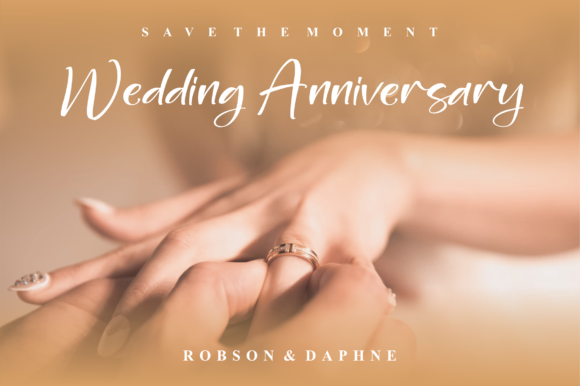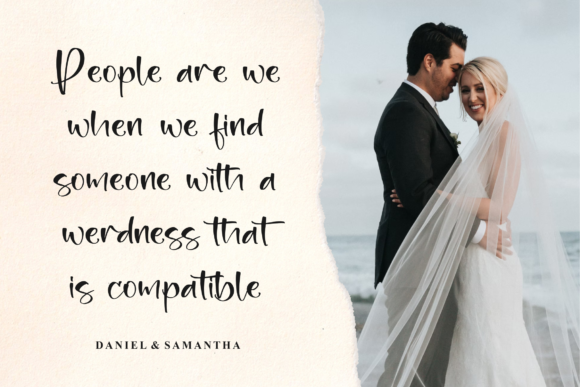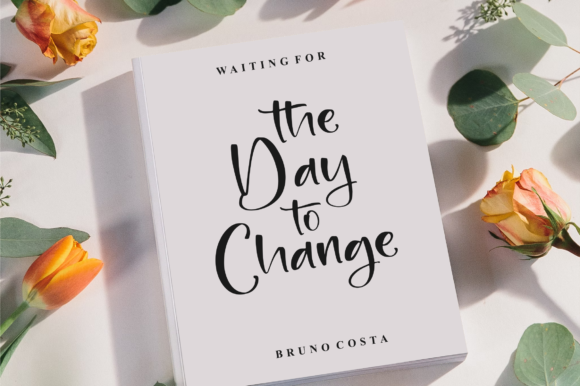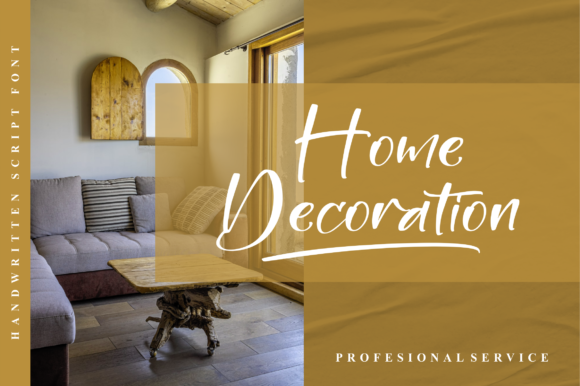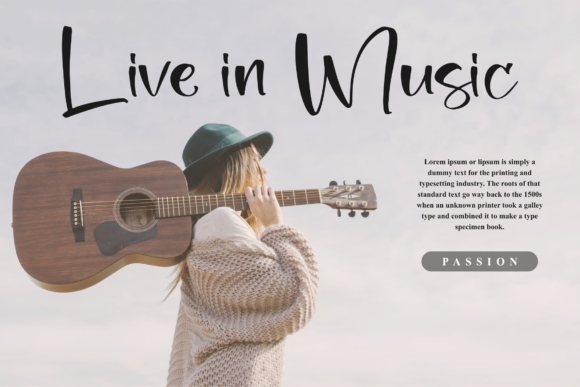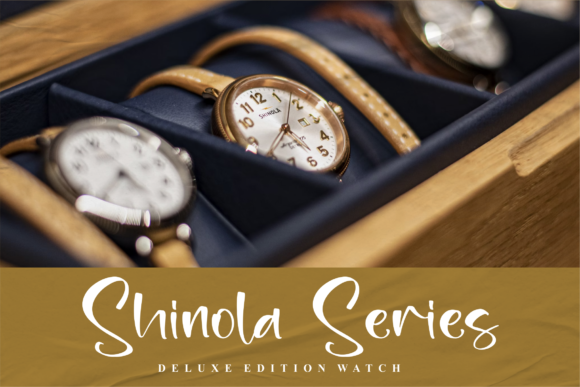
Gaterfly Mondy Font: Elevate Your Designs with Elegance and Sophistication
In the world of design, typography plays a crucial role in conveying the message and aesthetic of a project. For designers and crafters seeking a font that exudes elegance, sophistication, and a touch of whimsy, Gaterfly Mondy is an exceptional choice. This fashionable and delicate script font is perfect for a wide range of projects, from logos and branding to labels, photography, watermarks, and special events.
What Makes Gaterfly Mondy Stand Out?
Gaterfly Mondy is not just another script font; it’s a design statement. Its intricate and flowing lines bring a sense of beauty and refinement to any project. The font’s design is characterized by its:
- Delicate and Elegant Strokes: Each letter is crafted with precision, offering a smooth and luxurious feel that elevates the overall look of your designs.
- Fashionable Appeal: The font’s modern yet classic vibe makes it versatile for various design applications, ensuring your projects look contemporary and timeless.
- Script Elegance: Perfect for projects that require a personal touch, Gaterfly Mondy adds a sophisticated and bespoke feel.
One of the standout features of Gaterfly Mondy is its PUA (Private Use Area) encoding. This means that the font includes a range of glyphs and swashes that are easily accessible. Designers can effortlessly add a creative flair to their work without the hassle of complicated editing. The PUA encoding allows for:
- Easy Access to Swashes and Glyphs: No need for additional software or complicated processes; simply access these elements directly from your font library.
- Enhanced Creativity: With a variety of glyphs and swashes at your disposal, the possibilities for customization and creativity are endless.
Ideal for Various Projects
Gaterfly Mondy’s versatility makes it suitable for a multitude of design projects. Here are some of the areas where this font truly shines:
- Logos and Branding: Create a memorable brand identity with a logo that stands out. Gaterfly Mondy’s unique and elegant script can become synonymous with your brand’s image.
- Labels and Packaging: Add a touch of sophistication to your product labels and packaging. The font’s readability and aesthetic appeal make it perfect for product branding.
- Photography and Watermarks: Elevate your photography projects with elegant watermarks or captions that add a professional touch.
- Special Events: Whether it’s wedding invitations, event posters, or thank-you cards, Gaterfly Mondy adds a level of elegance and personal touch.
Why Choose Gaterfly Mondy?
With so many fonts available, why should Gaterfly Mondy be your go-to choice? The answer lies in its perfect blend of elegance, versatility, and ease of use. Here are a few reasons to consider:
- Unique and Memorable: In a sea of generic fonts, Gaterfly Mondy offers a unique script that can make your designs stand out.
- Time-Saving: Thanks to its PUA encoding, you save time that would otherwise be spent on editing and customizing glyphs and swashes.
- Cross-Platform Compatibility: Gaterfly Mondy can be used across various design platforms, ensuring consistency in your brand’s typography.
Gaterfly Mondy is more than just a font; it’s a design companion that brings elegance, sophistication, and a touch of whimsy to your projects. Its delicate strokes, fashionable appeal, and ease of use due to PUA encoding make it an indispensable tool for designers and crafters. Whether you’re working on a logo, branding project, or any other creative endeavor, Gaterfly Mondy is sure to elevate your designs to new heights of elegance and sophistication.